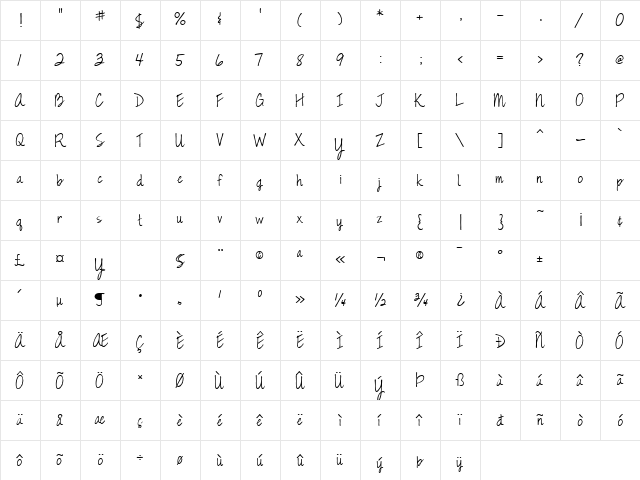
SU Girly Girl Regular
Design Context for SU Girly Girl Typeface
SU Girly Girl is a composed and adaptable typeface that performs quietly and consistently across a wide range of design contexts.